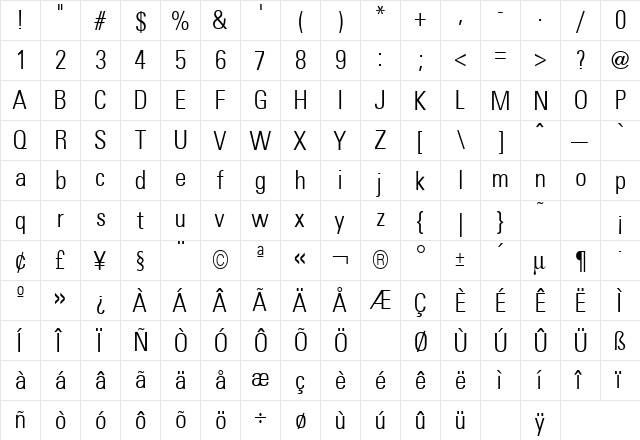
Uniform Condensed Light Regular Font Preview
Design Context for Uniform Condensed Light Typeface
Uniform Condensed Light takes a measured approach to typography — its balanced proportions and neutral character make it a reliable workhorse for both digital and print work. The delicate stroke weight brings airiness and refinement to layouts. Its narrow stance lets it pack a punch even in space-constrained designs.